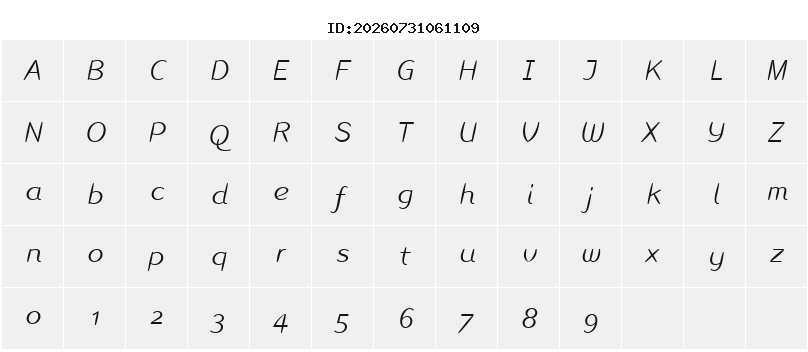
• Font Name: LTInagur Light
• Font ID: ParaType,Inc.onthebehalfandbythenameofLinotypeLibraryGmbH: Linotype Inagur Light Italic: 453
• Full Font Name: Linotype Inagur Light Italic
• PostScript Name: LinotypeInagur-LightItalic
• Designer: Hans-Jurgen Ellenberger
About LTInagur Light.ttf
LTInagur Light.ttf is a modern, elegant sans-serif font designed for ultimate readability and visual harmony. Perfect for branding, headlines, web design, and print materials.